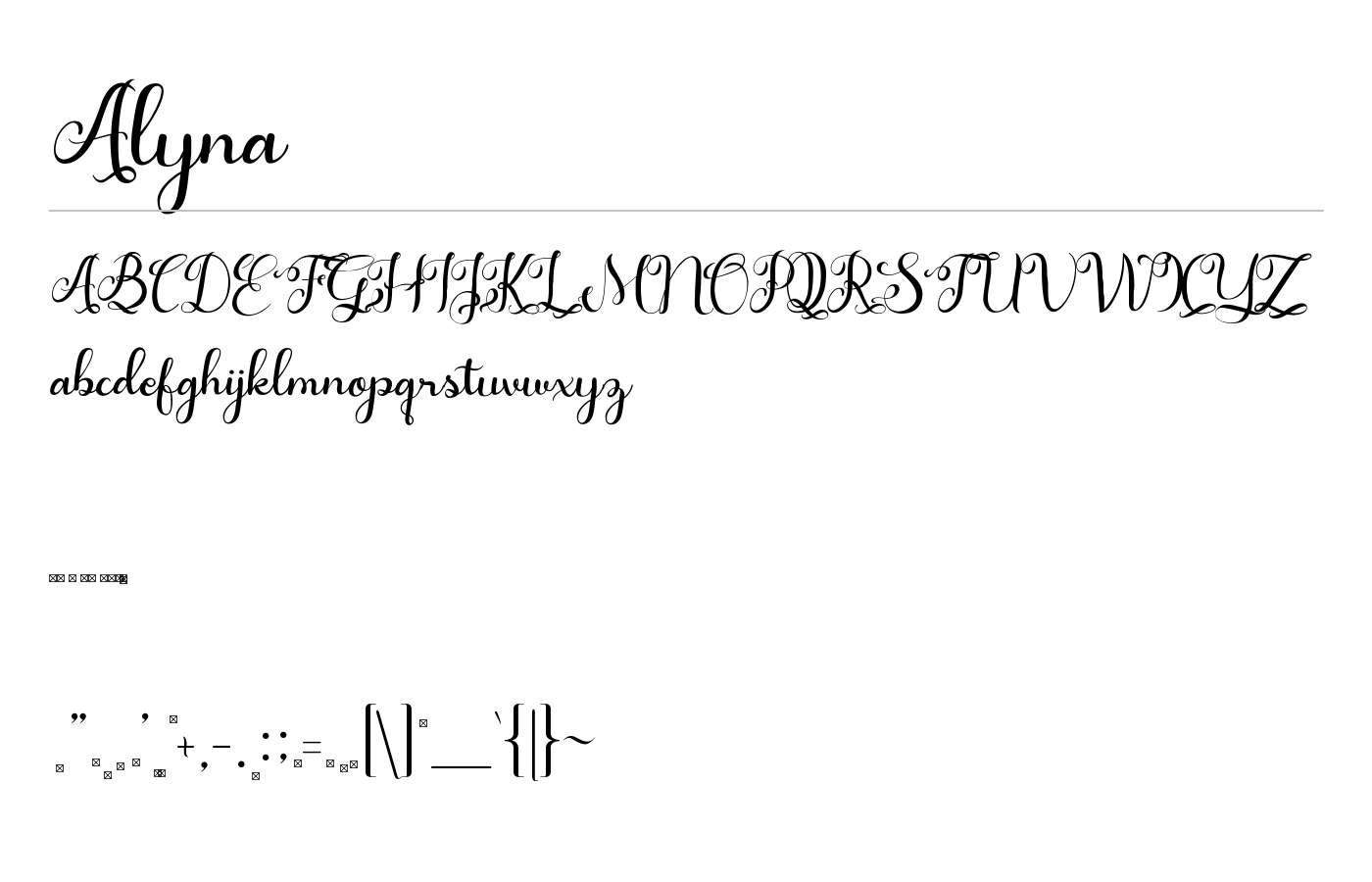
Alyna is an elegant script font featuring delicate, flowing letterforms with graceful swashes and curls, perfect for adding a touch of sophistication and charm. Its stylish uppercase letters paired with smooth lowercase characters make it ideal for invitations, branding, and other designs that seek a romantic or luxurious feel. This font works beautifully in projects where a refined, handwritten look is desired.
Alyna Font
About Alyna Font
| Font family | Alyna Font |
| Designer | Yesie Erma Yunita |